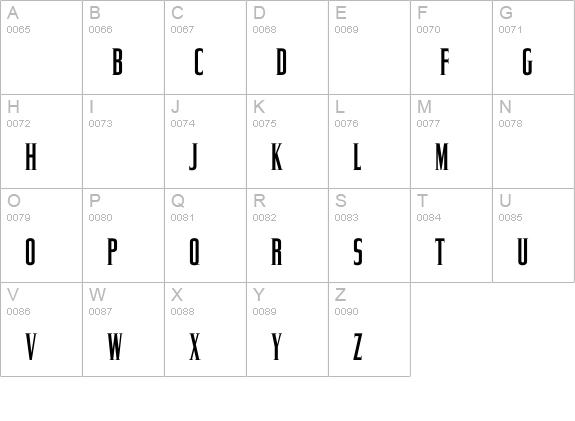
CommanderLight is a sleek and modern typeface that exudes authority and sophistication. With its clean lines and bold design, this font is perfect for making a statement in any project. Whether you are designing a poster, logo, or website, CommanderLight will command attention and leave a lasting impression. The best part? CommanderLight is completely free to download at FontsMarket.com! You can easily add this powerful font to your collection without breaking the bank. Don't miss out on the opportunity to elevate your designs with CommanderLight's striking presence and versatility. Download it now and take your projects to the next level.